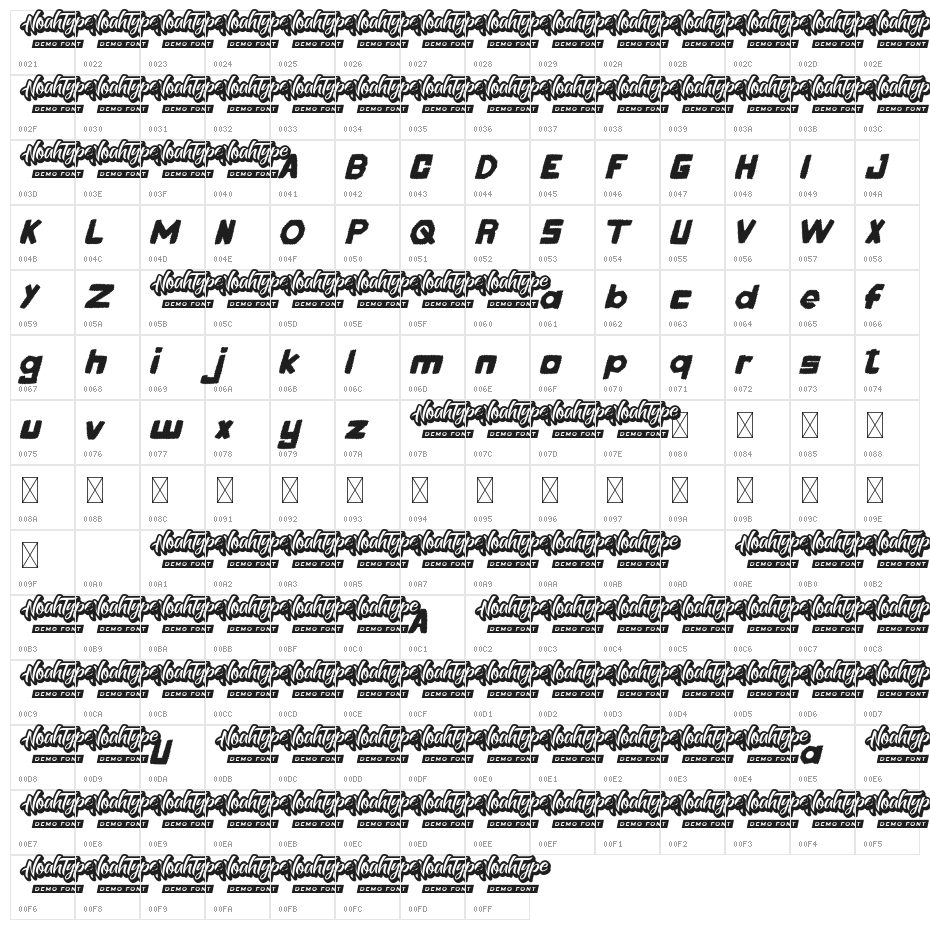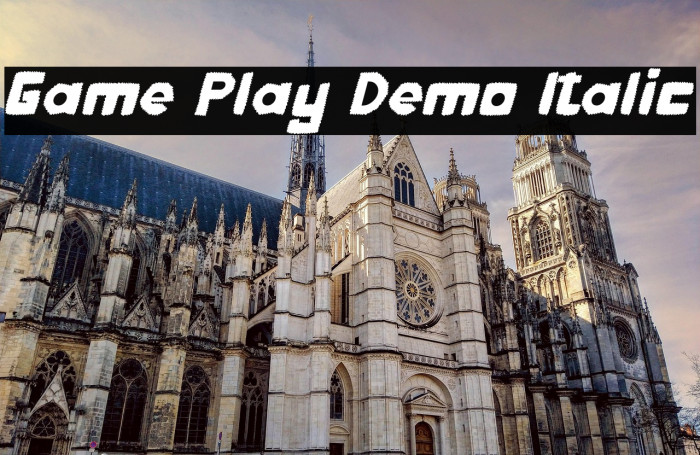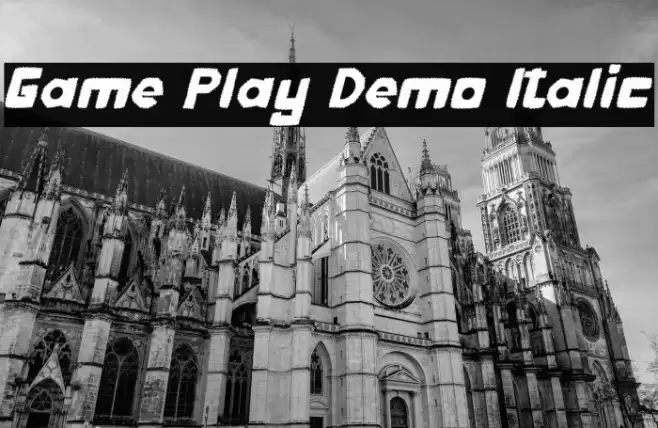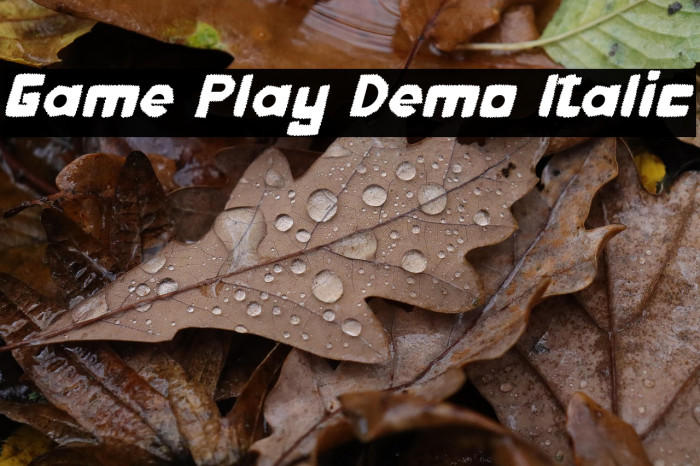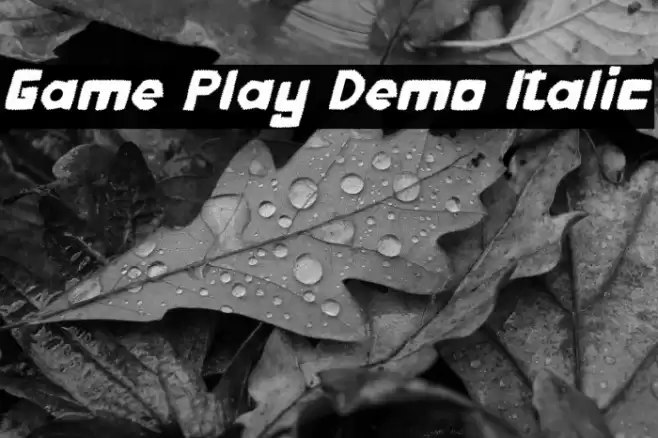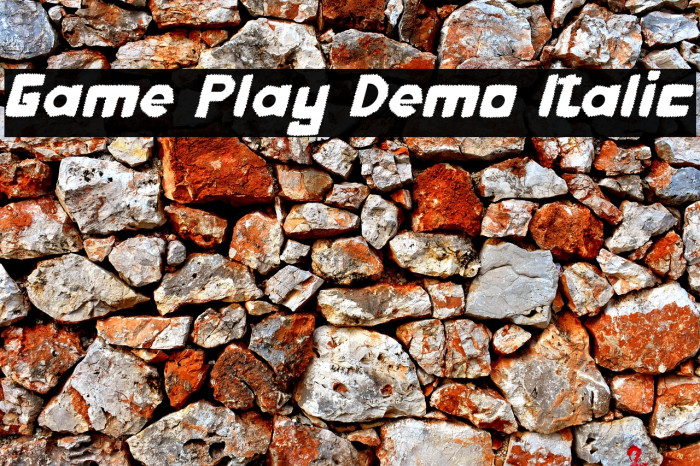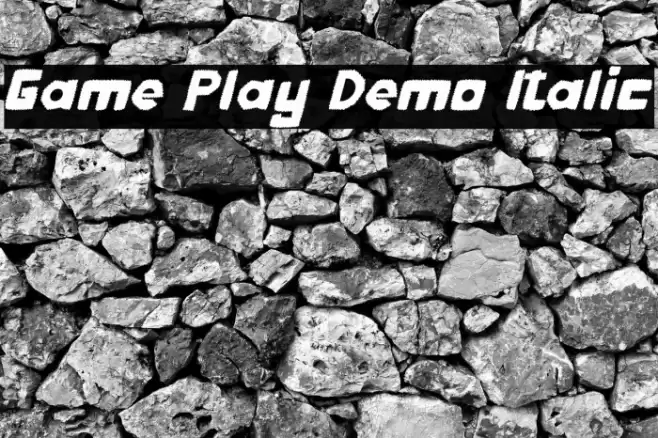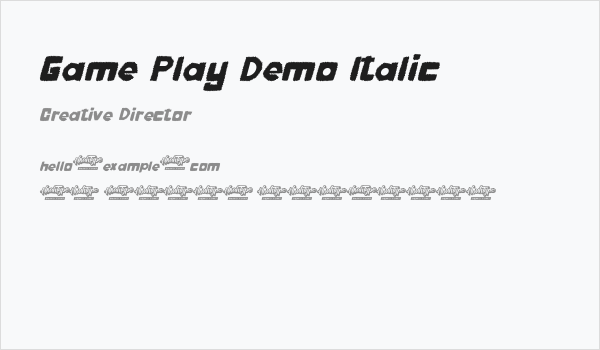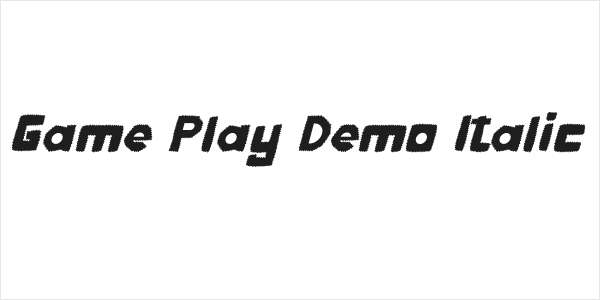
Game Play Demo Italic Font
Game Play Demo Italic Description
This font features a dynamic and energetic style with a bold, italicized appearance. The characters are designed with a jagged, zigzag pattern that gives them a unique, playful look. The uppercase and lowercase letters maintain a consistent slant, enhancing the italic effect. The numbers and special characters follow the same design principles, ensuring uniformity across all glyphs. This font's distinctive style makes it stand out, ideal for projects that require a sense of movement and excitement.
| Proposed Projects | Ideal for video game titles, sports event posters, or any project needing a dynamic and playful typeface. |